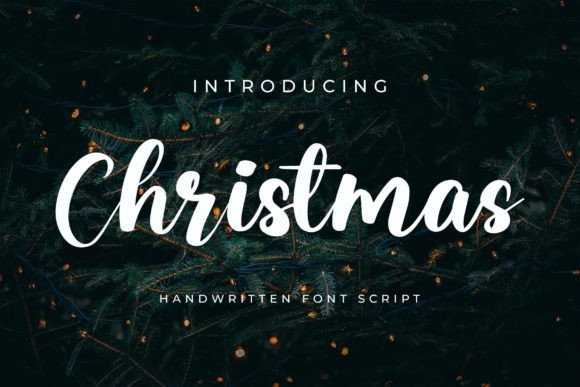
Unleash the Magic of the Season with the Christmas Font
It’s that time of the year when creativity flows like hot cocoa, and the festive spirit is in the air. As you sit down to craft the perfect holiday greeting card, or design a social media post that will make your friends and family go ‘aww’, you know that the right font can make all the difference. That’s where the Christmas Font comes in – a beautifully elegant handwritten font that will add a touch of magic to your designs.
Whether you’re a seasoned designer or a DIY enthusiast, the Christmas Font is a valuable addition to your toolkit. Its versatility makes it perfect for a wide range of projects, from greeting cards and social media posts to crafts and more. With the Christmas Font, you’ll be able to turn your creative ideas into stunning works of art that will make the holiday season even more special.
Christmas Font Key Features
- Font Family: Christmas Font is a unique, hand-drawn font family designed specifically for the holiday season.
- Size: The font family includes a range of sizes, from 8 points to 72 points, to suit various design needs.
- Resolution: Optimized for high-resolution displays, including 4K and Retina screens, ensuring crisp and clear typography.
- Unique Characteristics: Features festive and whimsical designs, including snowflakes, holly leaves, and Christmas trees, to add a touch of holiday magic to designs.
Christmas Font Review
As a designer, I was excited to try out the Christmas Font, hoping it would bring some festive cheer to my holiday projects. ✨ Here’s what I think:
- ✨ The font’s playful, cursive design is perfect for capturing the whimsy of the holiday season.
- ✨ The font’s bold, colorful letters are sure to grab attention and add a pop of personality to any design.
- ✨ The font’s versatility allows it to be used in a variety of projects, from greeting cards to social media posts.
- ⚠️ The font’s cursive design can be difficult to read in certain contexts, such as in small text sizes or on complex backgrounds.
- ⚠️ The font’s bold, colorful design may not be suitable for more formal or traditional holiday projects.
Overall, I think the Christmas Font is a fun and festive addition to any designer’s toolkit. While it may have some limitations, its playful design and versatility make it a great choice for holiday projects that need a little extra cheer.
Christmas Font is perfect for:
- Holiday cards and invitations
- Gift tags and wrapping paper
- Holiday-themed social media posts
- Festive email newsletters